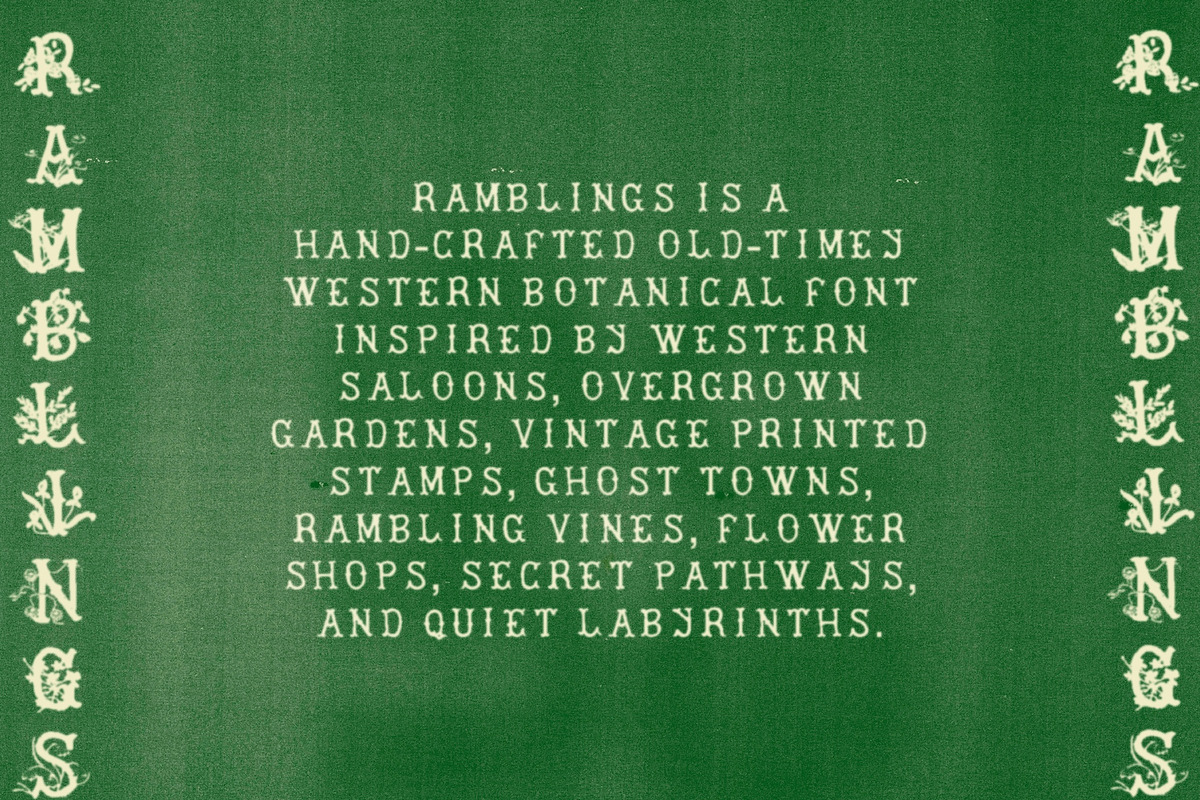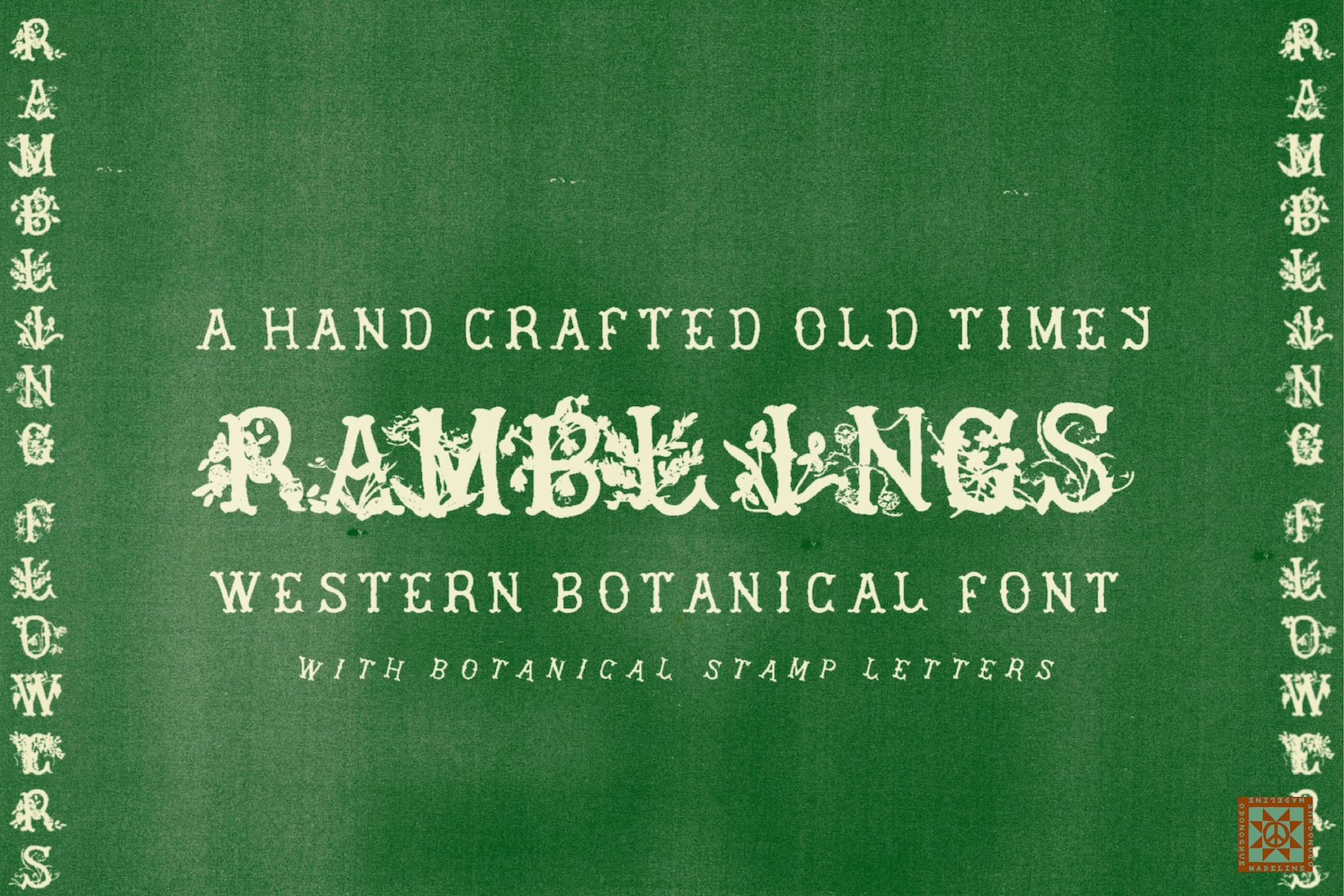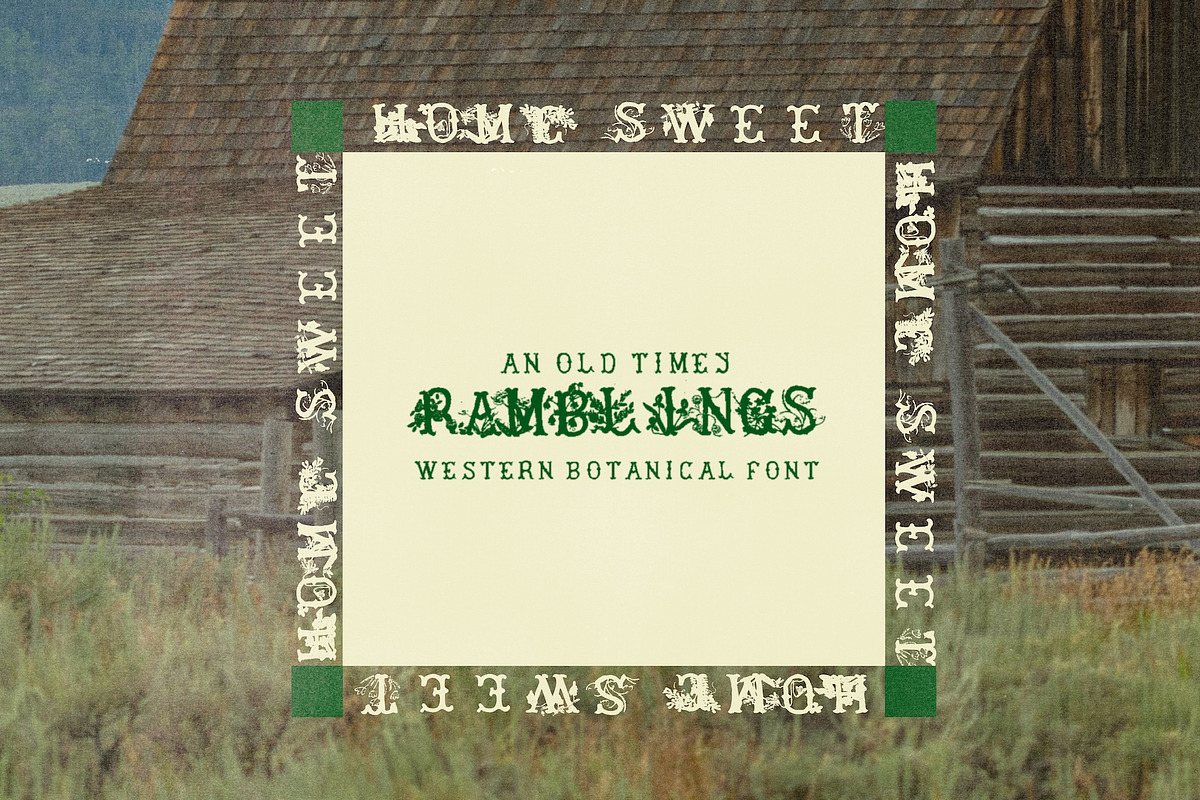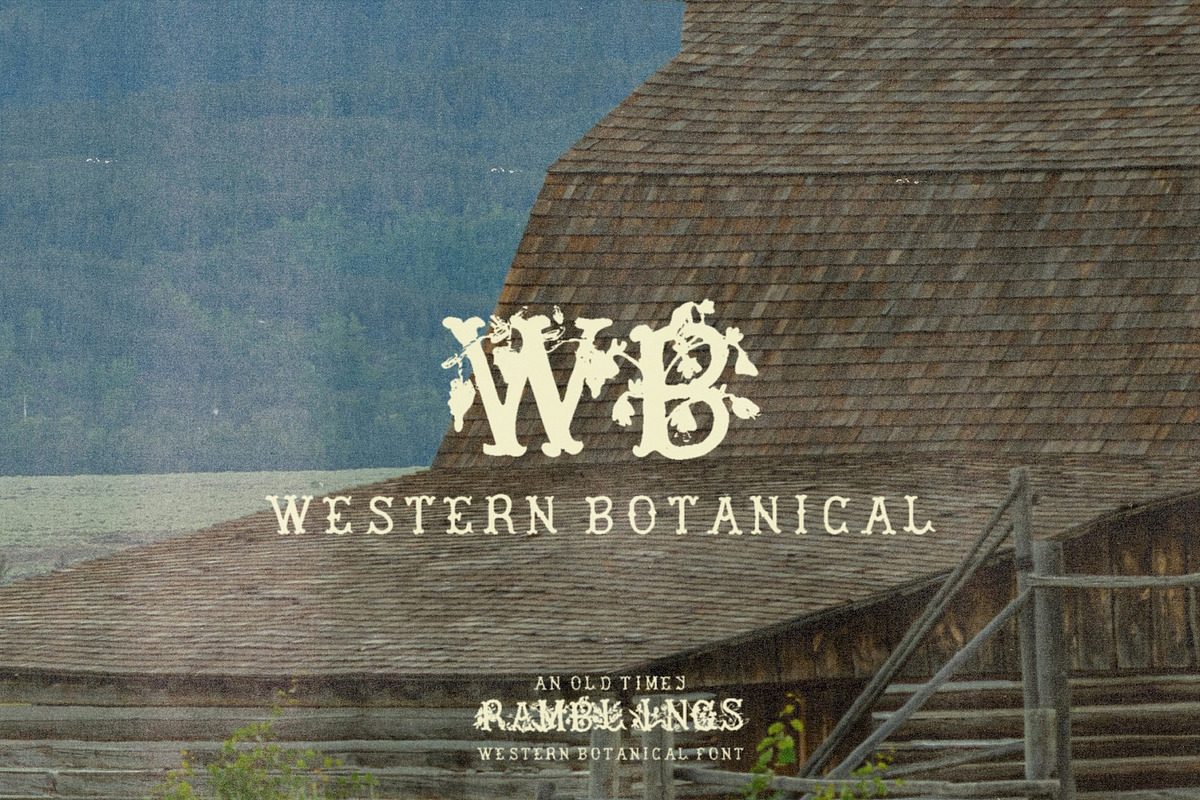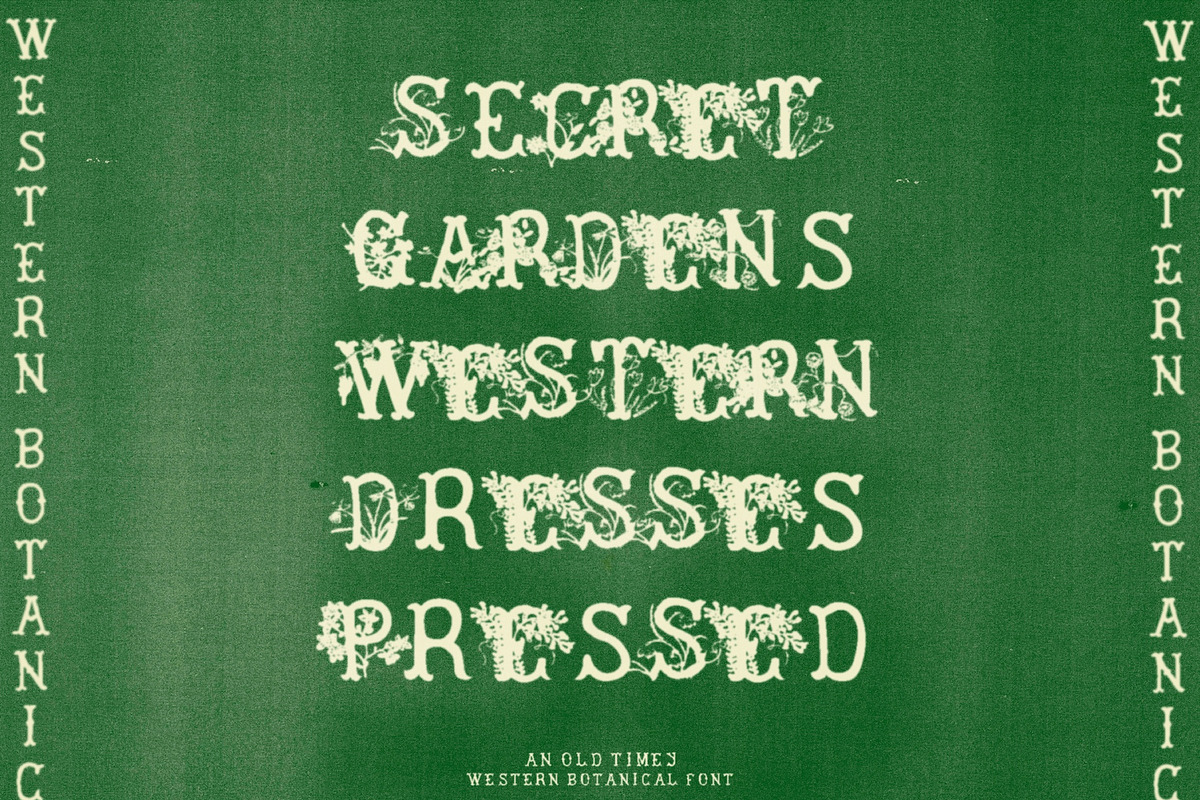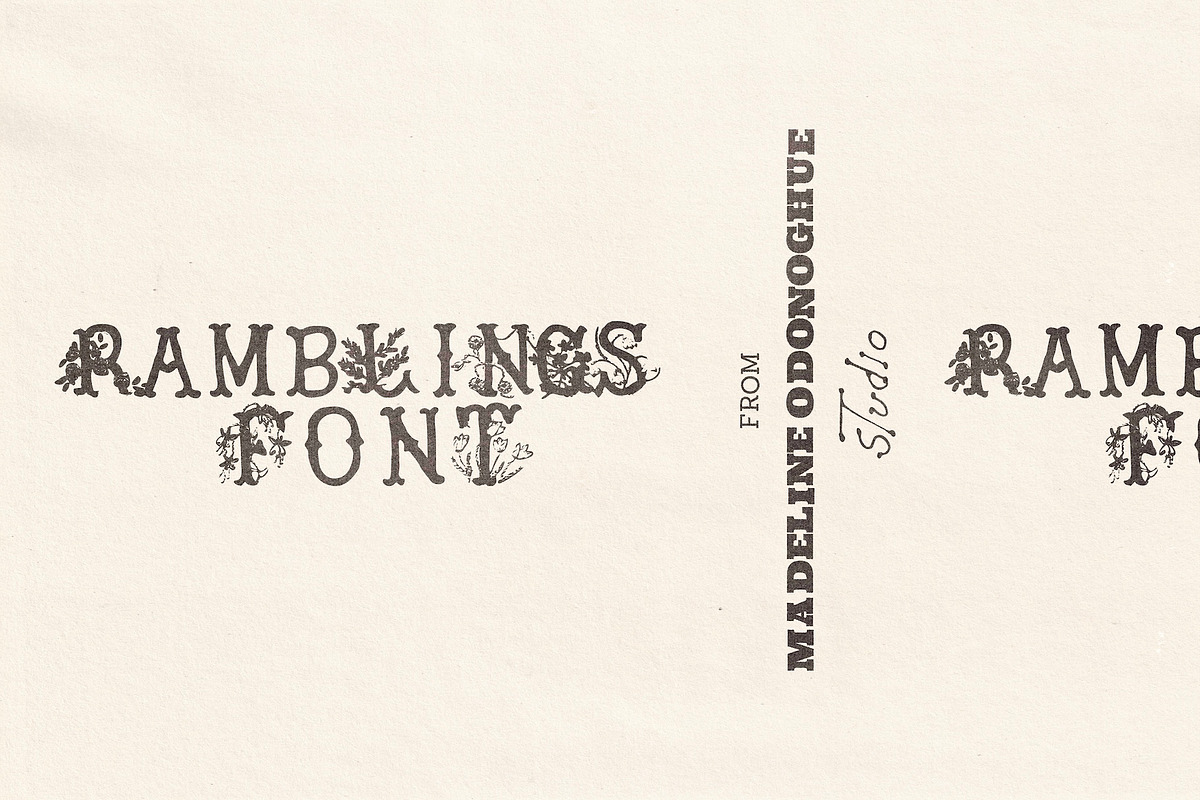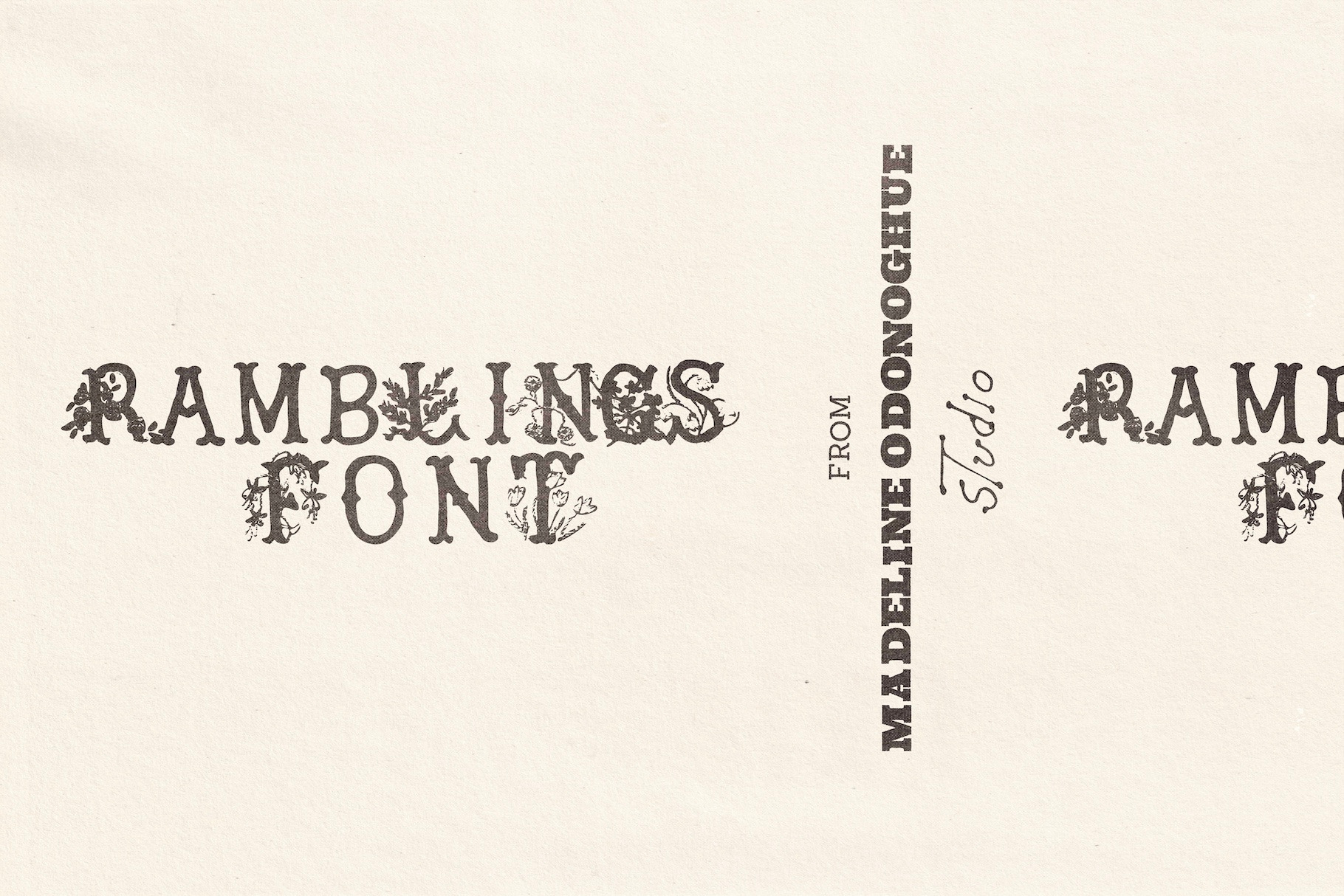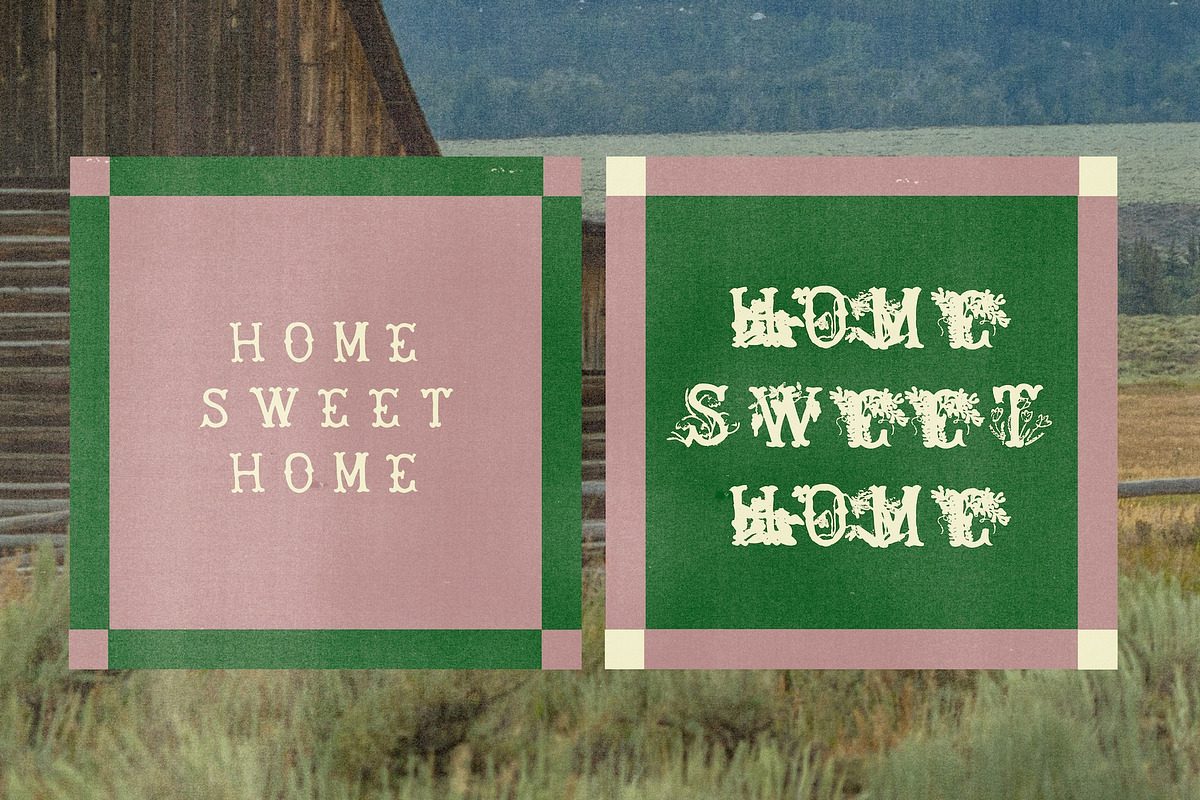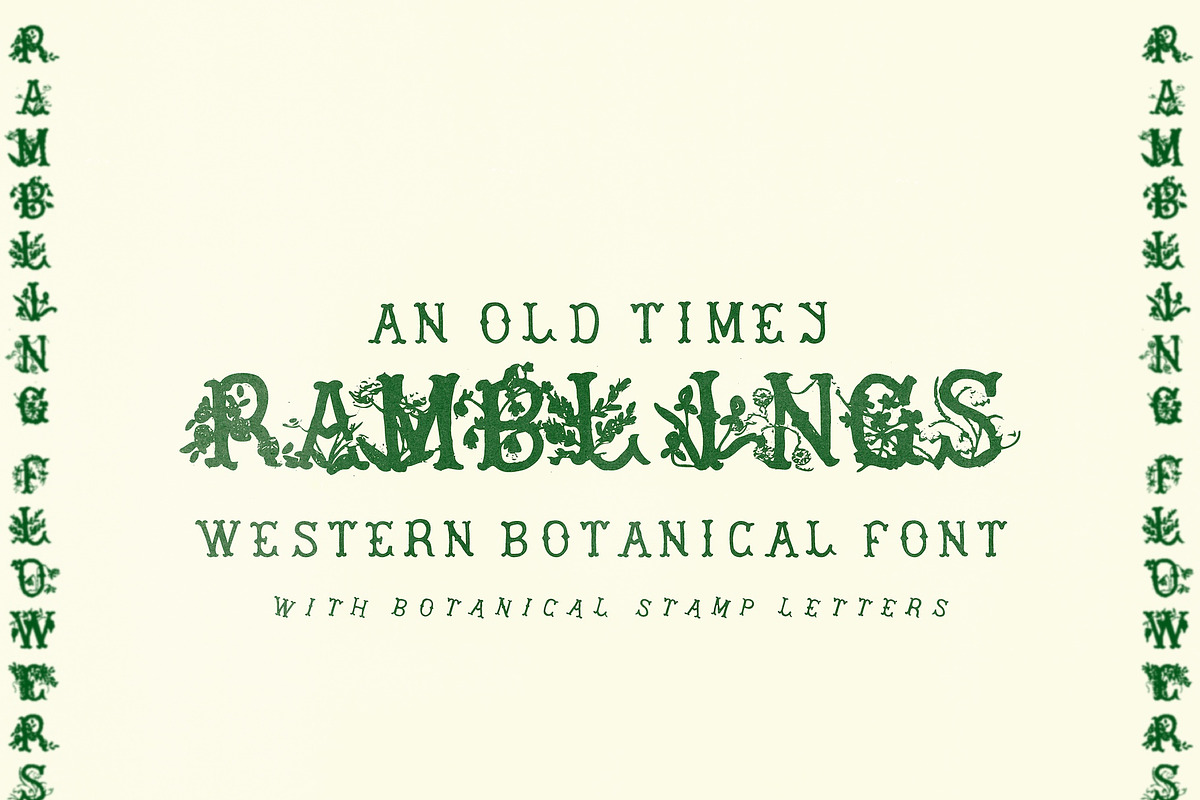
Ramblings Hand Crafted Western Font
Ramblings is a hand-crafted old-timey western botanical display font inspired by saloon signage, overgrown gardens, vintage printed stamps, ghost towns, rambling vines, flower shops, secret pathways and quiet labyrinths.
It combines the grit of the cowboy with the softness of florals — wooden storefronts edged with climbing roses, antique stamp seals pressed into paper, gardens slowly reclaiming forgotten towns.
Ramblings feels collected rather than constructed. Pressed rather than polished. Like lettering discovered on a faded saloon window, softened by time and threaded through with vines.
A Western Display Font with Botanical Detail
This font is designed as a display typeface but works best at smaller sizes and not blown up large as a large format print type font. It's delicate letters are better for small digital use.
Uppercase A–Z Detailed botanical stamp letters — framed, ornamental, inspired by vintage seals and printed ephemera. These carry intricate detail and work beautifully at small-to-medium display sizes where the stamp quality can be appreciated.
Lowercase a–z A western-inspired print style — clean, steady, grounded in traditional saloon signage and antique press type.
Together, they create contrast between ornament and restraint. Structure and overgrowth. Frontier and flower.
It is best used as a display font
Manual kerning and letter spacing adjustments are recommended
Looks especially beautiful when you experiment with tighter or slightly expanded tracking
Works best in headlines, logos, packaging, covers and artwork rather than body text
Western-inspired branding
Botanical logos & packaging design
Vintage stamp aesthetics
Flower shops & garden studios
Book covers & literary projects
Album artwork & posters
Saloon-style signage with a romantic edge
Artisan labels & handcrafted product branding
Uppercase A–Z (botanical stamp letters)
Lowercase a–z (western print letters)
Please Note Ramblings includes letters only. No numbers, punctuation or multilingual characters are included.
Designed specifically for display and creative use. Ramblings is dusty and delicate. Structured yet wandering. A little wild at the edges — like a secret garden growing through an old western town.